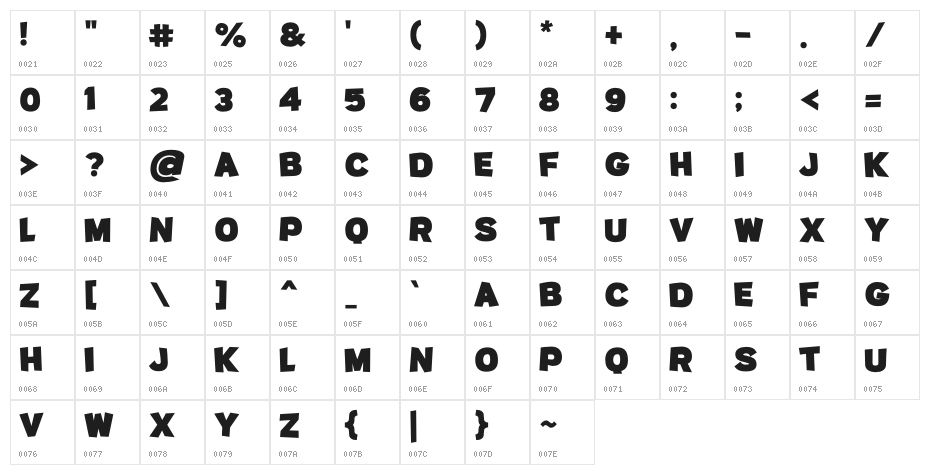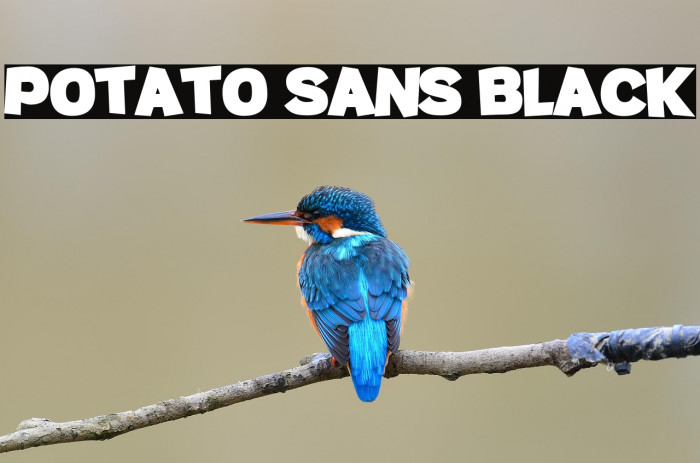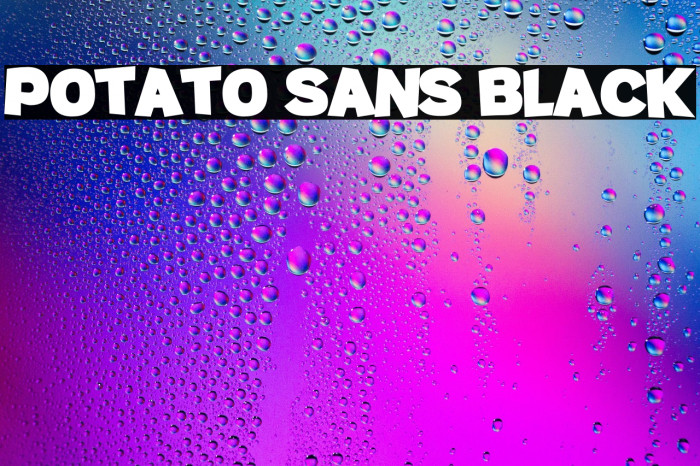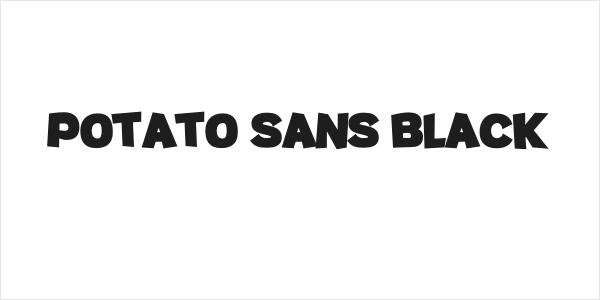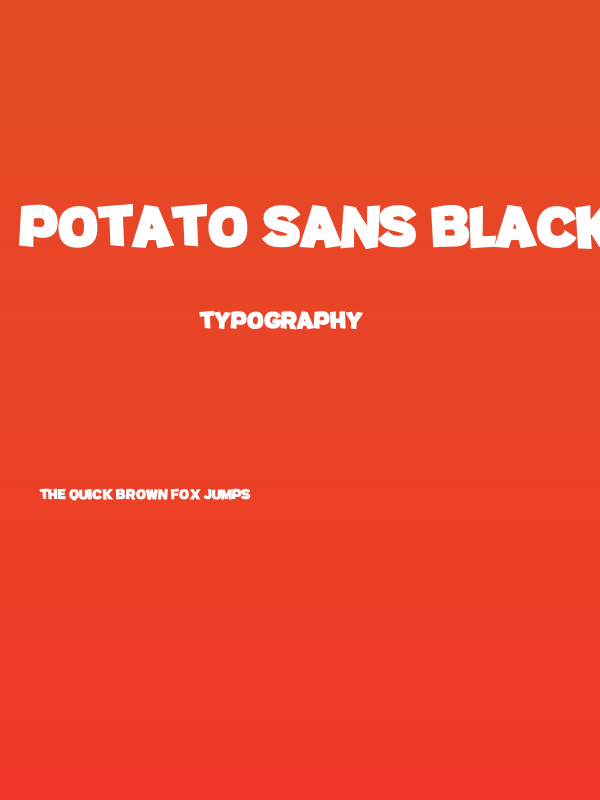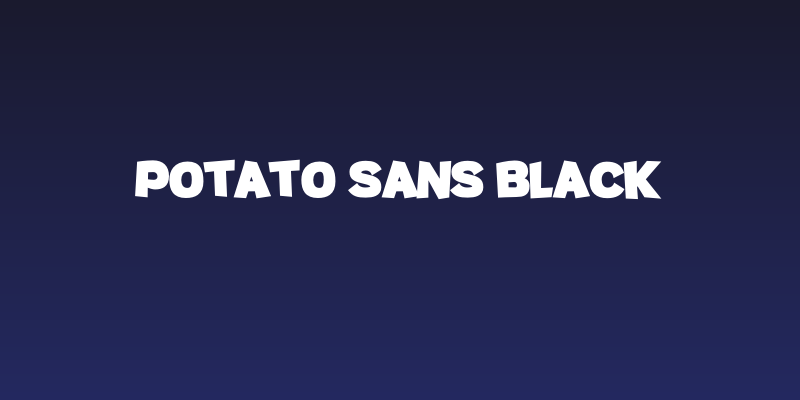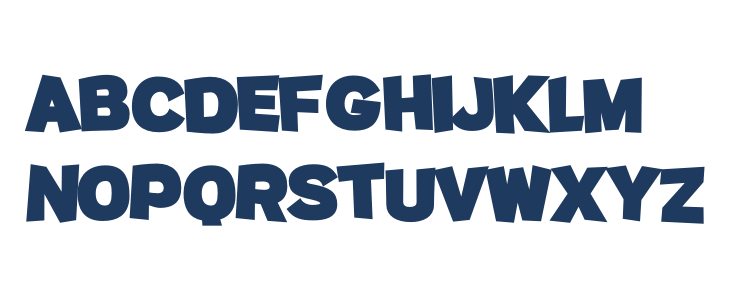
Potato sans Black Font
Potato sans Black Description
This font features bold, playful characters with a strong presence. The letters are thick and slightly irregular, giving them a whimsical and informal appearance. The strokes are consistent in weight, contributing to a cohesive look across all characters. The font's style is reminiscent of comic or cartoon lettering, making it ideal for projects that require a fun and engaging visual impact. The characters are well-spaced, ensuring readability while maintaining a dynamic and energetic feel. This font is perfect for creating eye-catching headlines, posters, or branding materials that aim to convey a sense of fun and creativity.
| Overall Style | Playful, Fun, Cartoonish |
| Use Case | Headlines, Posters, Branding |
| Proposed Projects | Perfect for comic books, children's books, playful branding, and eye-catching posters. |